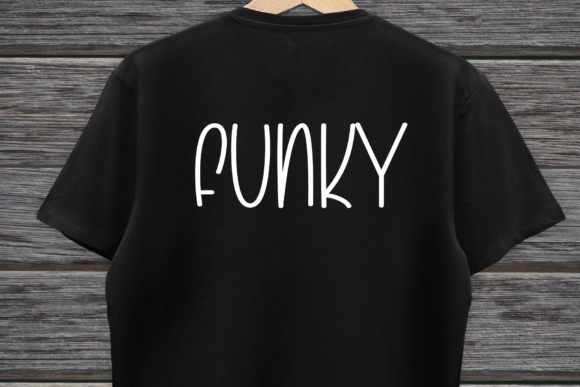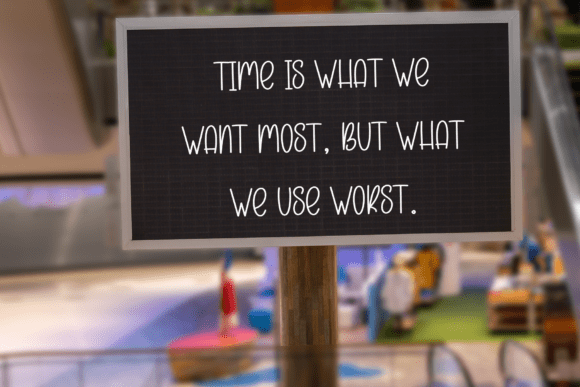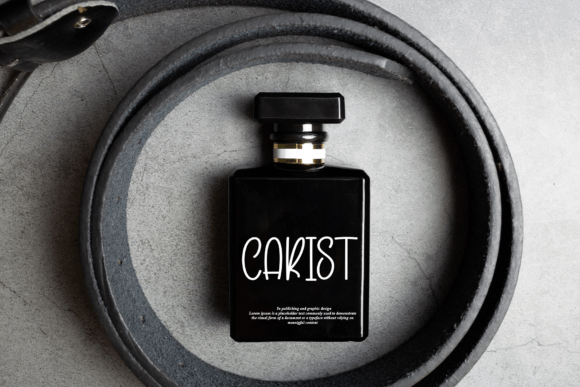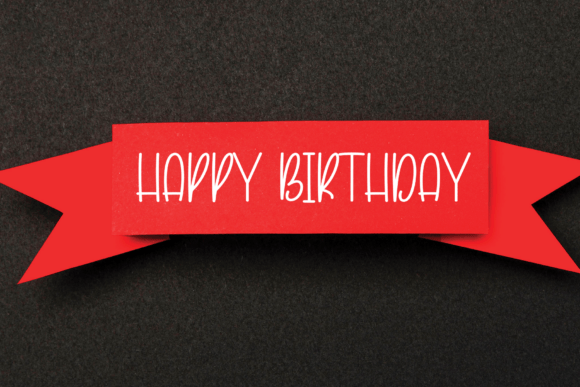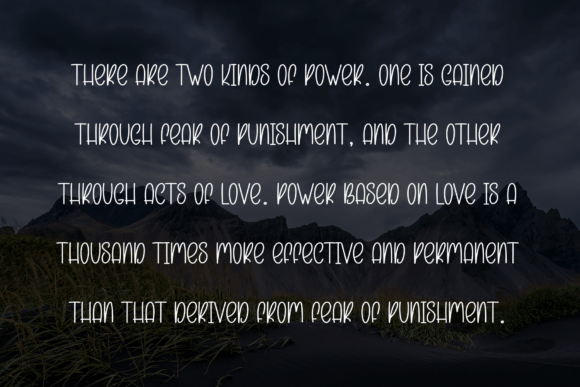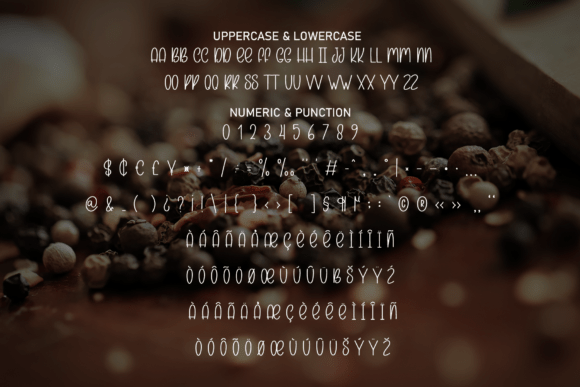
Introducing Black Pepper Font: The Perfect Blend of Rustic Charm and Modern Elegance
Are you a designer or crafty enthusiast looking for a unique font that captures the essence of a specialty boutique or artisanal kitchen? Look no further than Black Pepper Font, a tall display font that exudes a rustic, handcrafted personality. With its elongated forms and organic, slightly quirky letter shapes, this font is sure to command attention while maintaining a soft, welcoming aesthetic.
The Characteristics of Black Pepper Font
Black Pepper Font is characterized by its high-impact verticality, artisanal handwritten feel, and excellent legibility. Its rounded edges give it a soft, approachable look that is perfect for a variety of design applications. The font’s elongated forms and organic letter shapes evoke the feeling of a specialty boutique or an artisanal kitchen, making it an ideal choice for designers who want to add a touch of rustic charm to their work.
Key Features of Black Pepper Font
- High-impact verticality: Black Pepper Font’s tall, statuesque letters are perfect for headlines, titles, and signage.
- Artisanal handwritten feel: The font’s organic, slightly quirky letter shapes give it a handcrafted feel that is perfect for designs that require a personal touch.
- Excellent legibility: Despite its unique character, Black Pepper Font remains highly legible, making it perfect for use in a variety of design applications.
Best Uses for Black Pepper Font
Black Pepper Font is a versatile font that can be used in a variety of design applications. Here are some of the best uses for this font:
- Organic food packaging: Black Pepper Font’s rustic, handcrafted feel makes it perfect for organic food packaging that requires a natural, earthy look.
- Restaurant menus: The font’s elegant, yet approachable look makes it perfect for restaurant menus that require a touch of sophistication.
- Kitchen-themed home decor: Black Pepper Font’s artisanal feel makes it perfect for kitchen-themed home decor, such as wall signs, aprons, and tea towels.
- Boutique storefront signage: The font’s high-impact verticality and elegant look make it perfect for boutique storefront signage that requires attention-grabbing headlines.
Tips for Using Black Pepper Font
Here are some tips for using Black Pepper Font in your designs:
- Use it as a display font: Black Pepper Font is perfect for use as a display font, where its high-impact verticality and elegant look can be showcased.
- Pair it with a simple font: To create visual interest, pair Black Pepper Font with a simple font for body text.
- Experiment with colors: Black Pepper Font looks great in a variety of colors, from earthy tones to bold brights.
Black Pepper Font is a unique and versatile font that is perfect for designers and crafty enthusiasts who want to add a touch of rustic charm to their work. With its high-impact verticality, artisanal handwritten feel, and excellent legibility, this font is sure to command attention while maintaining a soft, welcoming aesthetic. Whether you’re designing organic food packaging, restaurant menus, kitchen-themed home decor, or boutique storefront signage, Black Pepper Font is the perfect choice.